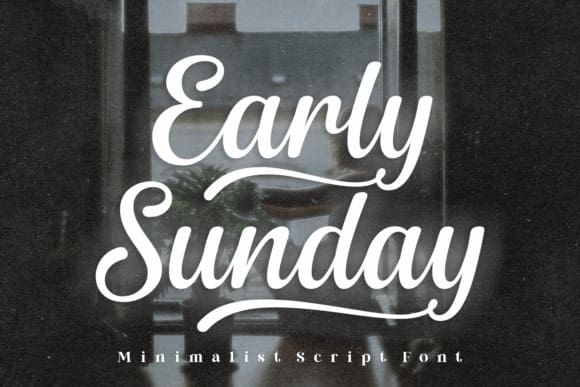
Early Sunday Font
Early Sunday Font is perfect for a variety of purposes, such as creating cards, invitations, or social media posts for the holiday. It conveys a sense of warmth, love, and affection, making it ideal for expressing heartfelt sentiments to a loved one. Taking romantic to a whole new level is a font with hearts for dots—you can find them on characters like “i” and “j”.